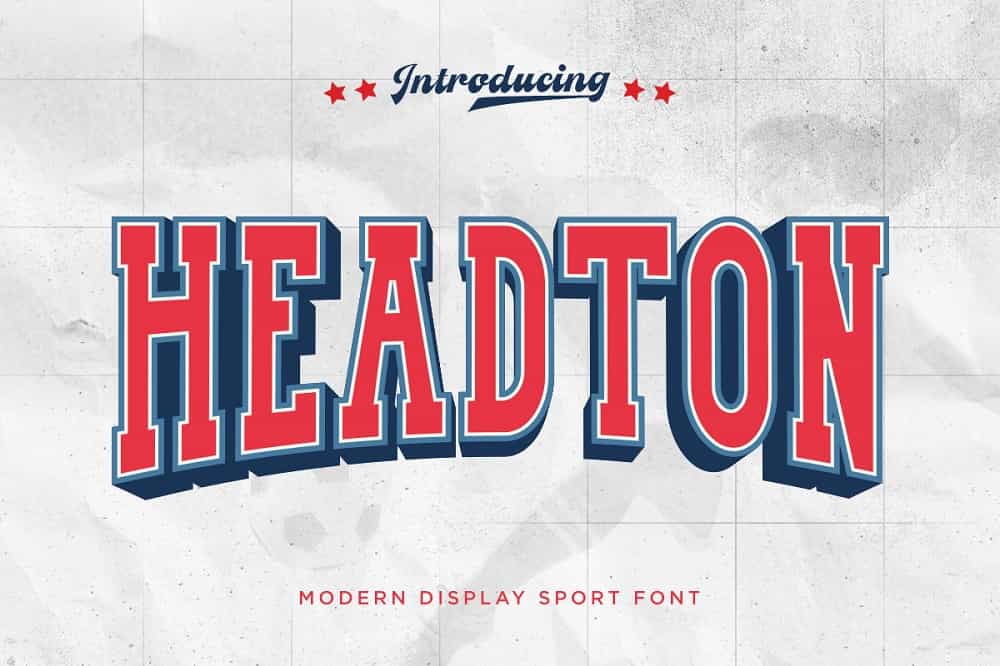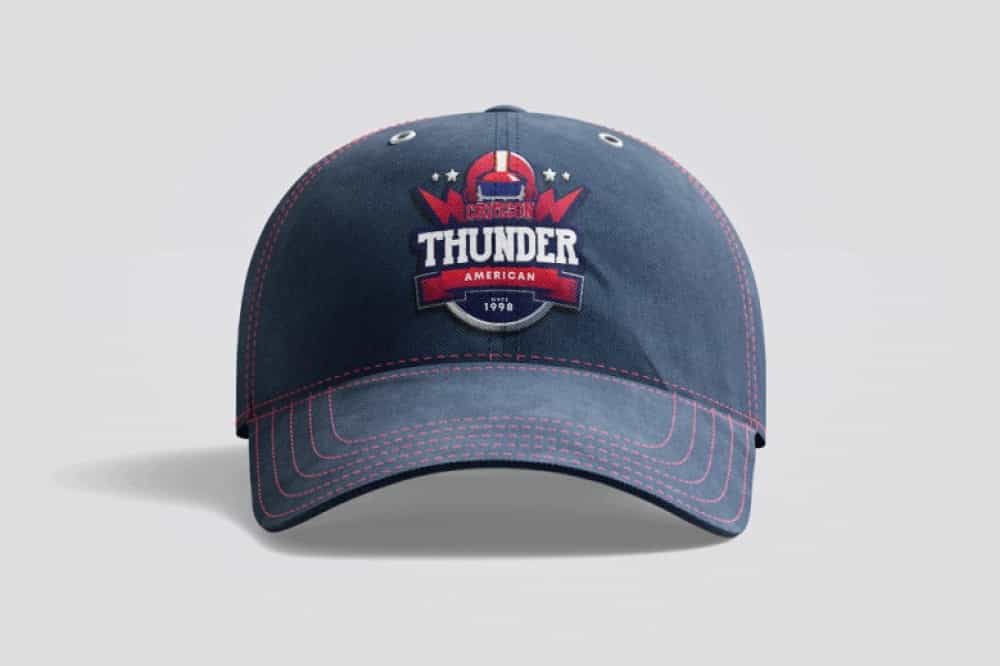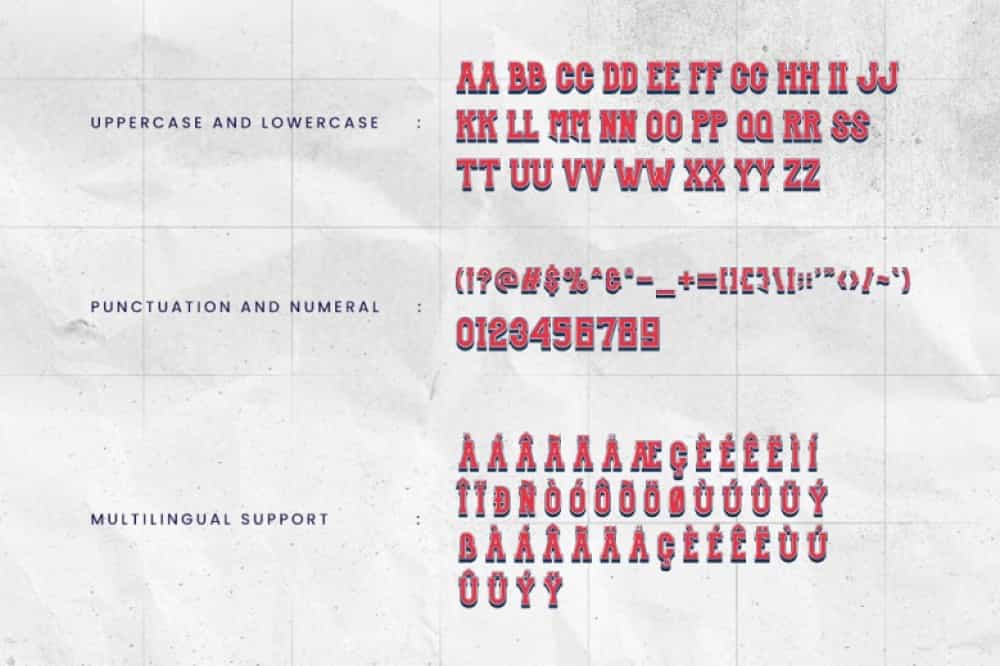
Headton is a modern display sport font that presents the modern and sporty feeling. Clearly legible and very much distinct, this font type can be applicable to various purposes depending on the operator. This font is easy to read and it catches the eye of the user and applies to both headings and body texts. Headton Font is a elegant and trendy font. This font was created to extend the choices of sports fonts for many purposes.